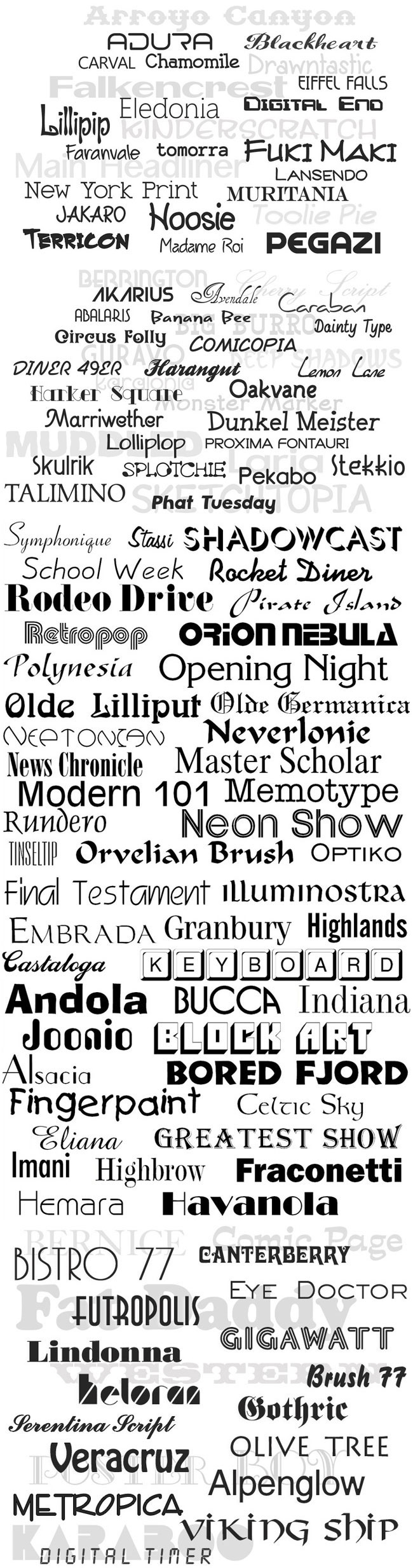
Font Bundle Highlights
- 2000+ Fonts
With this Mighty Deal, you’re getting 2 monstrous font family bundles in one! The first features 1,313 total fonts, while the second sports an additional 1,000 fonts – all royalty free for commercial use, and packaged together for any creative project. That’s literally thousands of different ways to get your point across. - 300+ Unique Font Families
Between the two typeface collections, you’ll get over 300 different Font Families! That’s 101 unique font families in the first collection, and 238 unique font families in the second. Talk about your family get togethers! - Unlimited Potential
With 2,000 fonts, the design world is your oyster! This collection is perfect for just about any type of project, be it logos, business cards, websites, posters, presentations, advertisements, and more! - Mac and PC Compatible
The first font bundle includes a wide variety of font styles for each family. Each font family includes: Regular, Bold, Italic, Bold Italic, Condensed, Condensed Bold, Condensed Italic, Expanded, Expanded Bold, Expanded Italic, Wide, Wide Bold, and Wide Italic. - International Character Support
Every premium font included in this mega collection comes with support for popular international characters. Now you can get your point across no matter who or where you’re speaking!